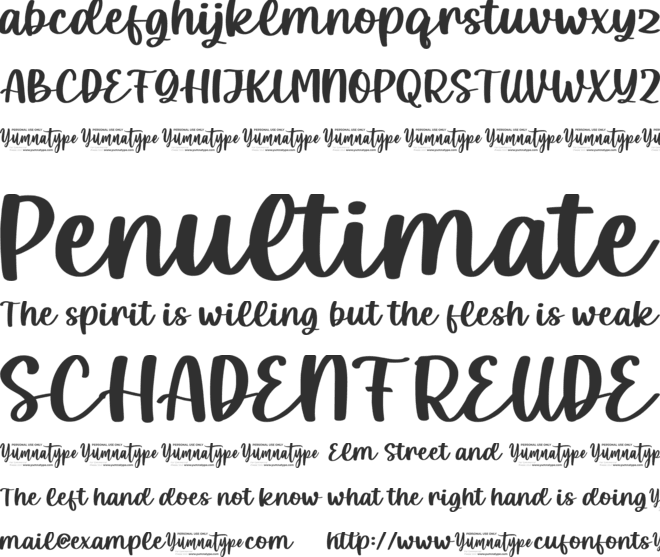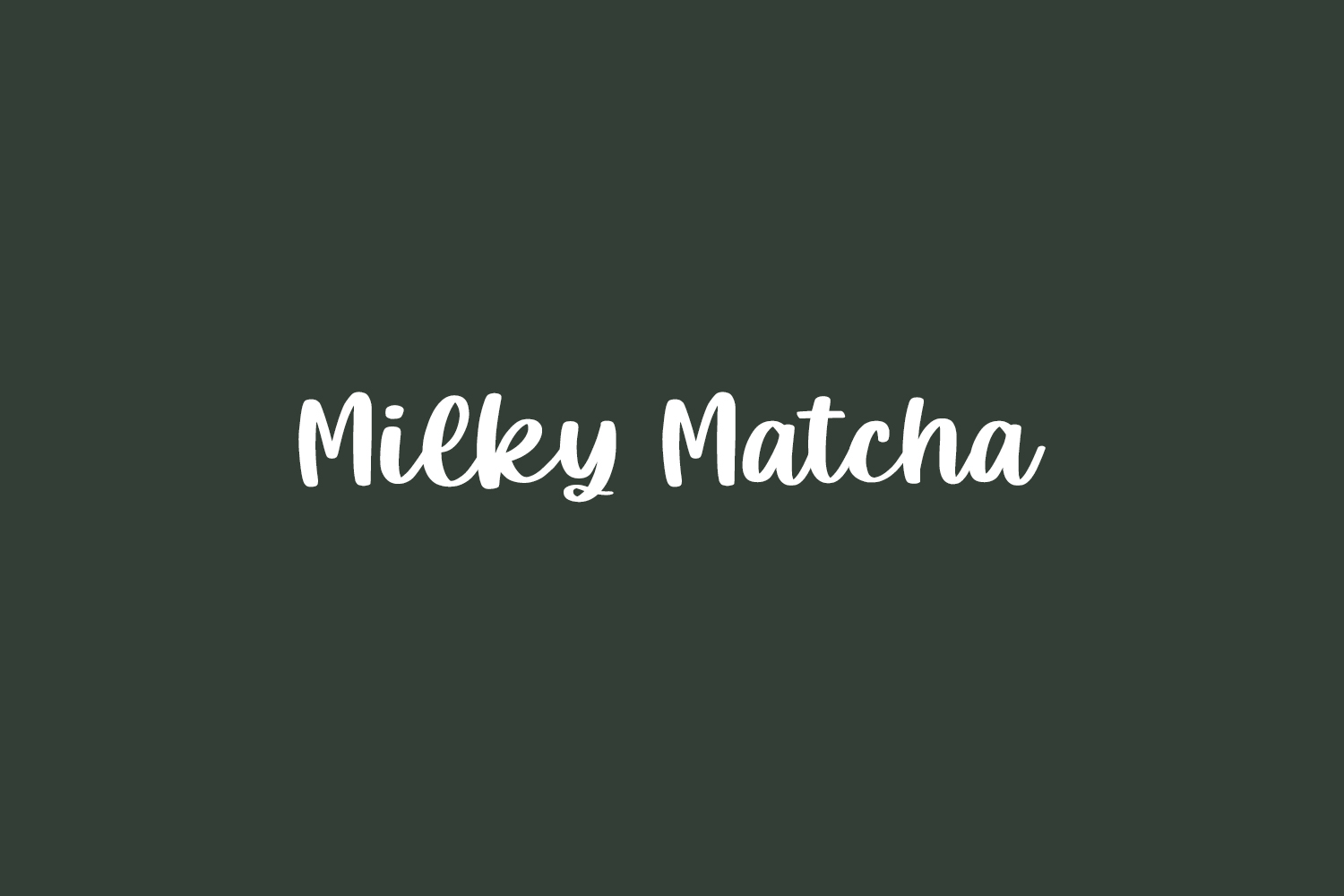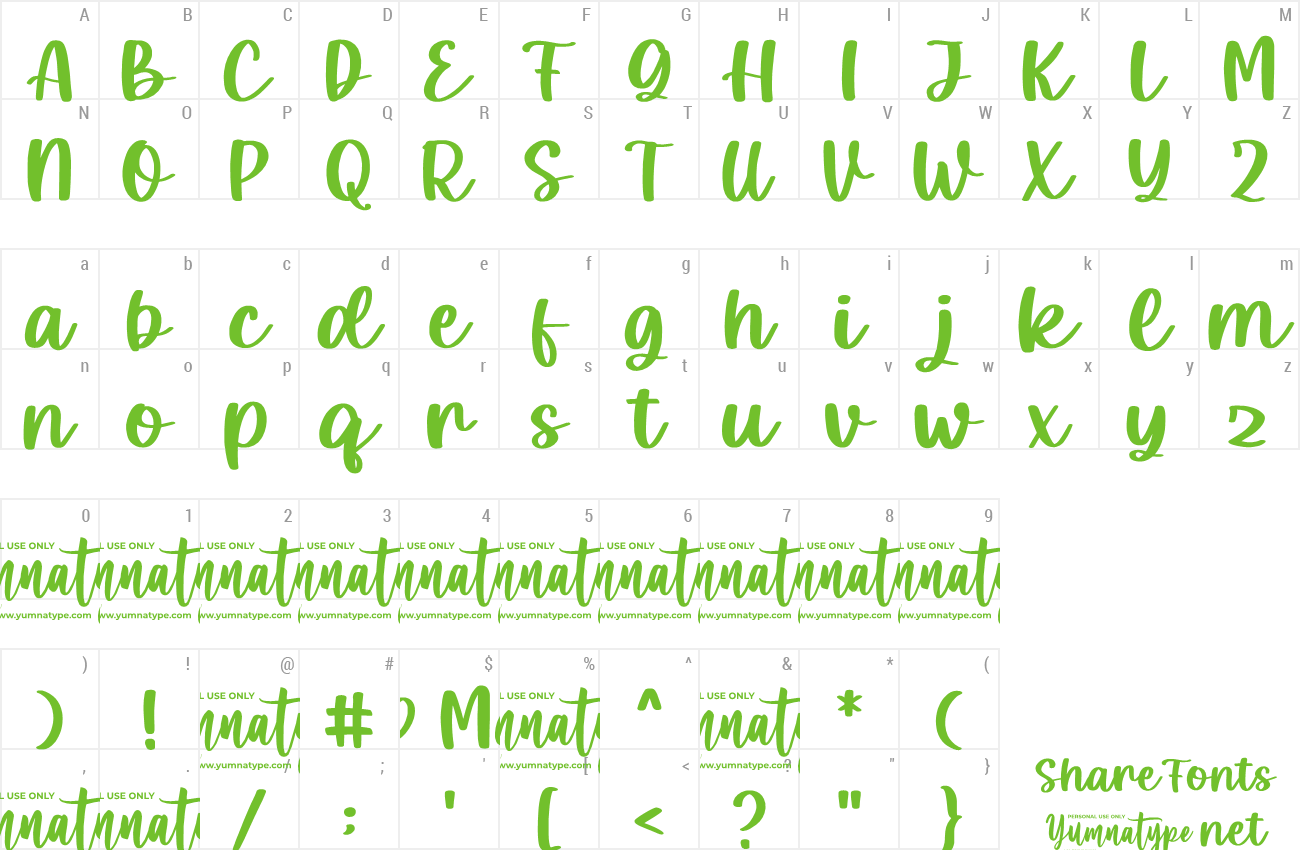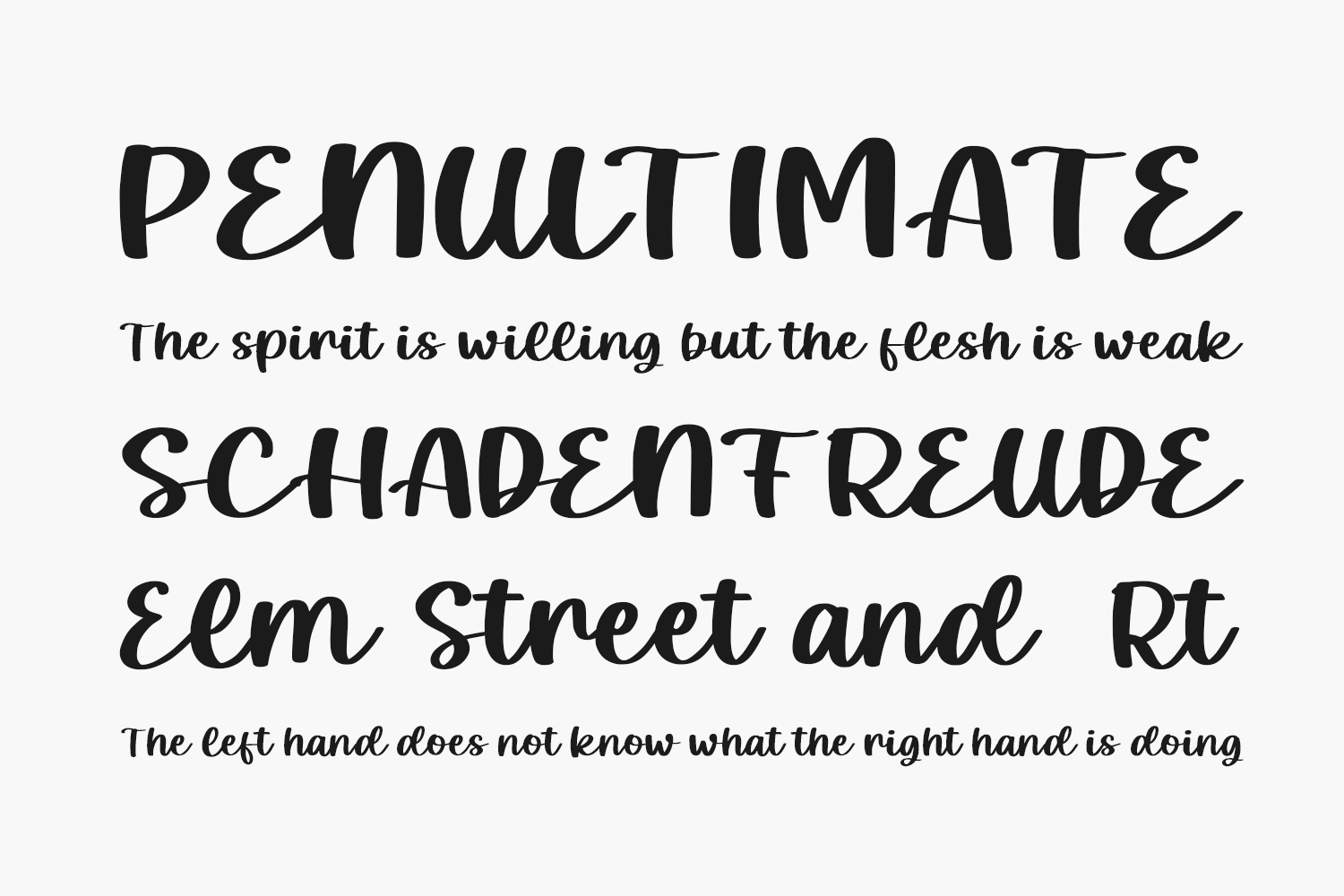
Milky Matcha Font
Milky Matcha Font - It is the best for logos,. Made for any professional project branding. Web milky matcha is a beautiful handwritten font.
Milky MatchaBeautiful Handwritten Font Yumna Type